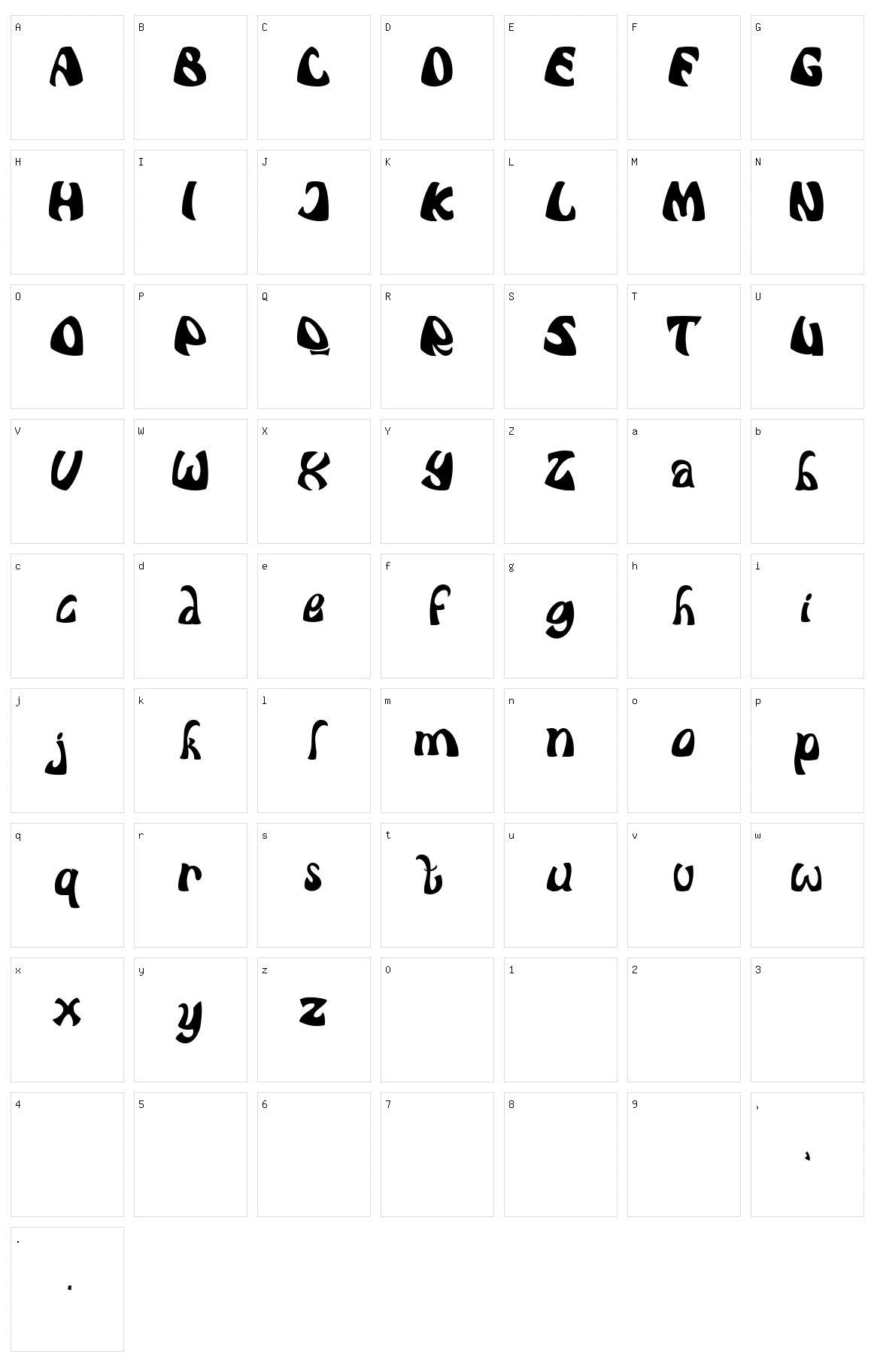
The free font The Creepy is carefully designed by Faisal Nahdi, showcasing a thoughtful balance of creativity and usability and falls under the Halloween font style. When you download the ZIP file, it contains only 16.86 KB of font files, making it lightweight and quick to download. Please review the license details below to understand permitted usage and distribution rights. If license information is not available, we recommend using this font for personal projects only or contacting the author directly for commercial usage permissions.